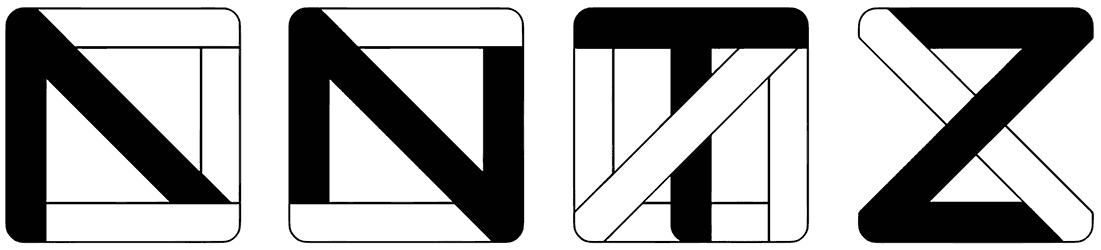
Antz Font
Designed byAntz
Would you like to adorn your design to appear unusual and catchy? This geometric font, with its distinct appearance, would be a perfect choice to make it happen. Antz has a unique and a bit unreadable face. It doesn’t support lowercase letters and punctuation marks, but it would still be a cool option for your upcoming designs, like posters, web graphics, logos, and so on.
Official Font of A.N.T.Z NFT